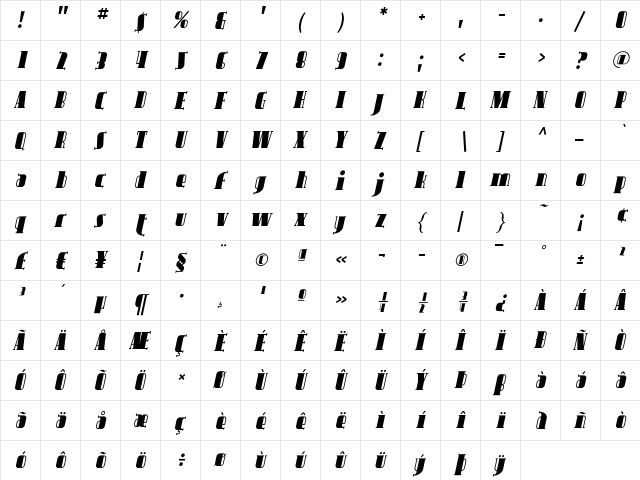
Avondale Italic
| Designer | Derek Vogelpohl |
Design Context for Avondale Typeface
Avondale offers clean, dependable letterforms without strong stylistic allegiance, making it a practical choice for designers who need flexibility. The dynamic lean of this cut emphasises speed and emphasis in any layout.